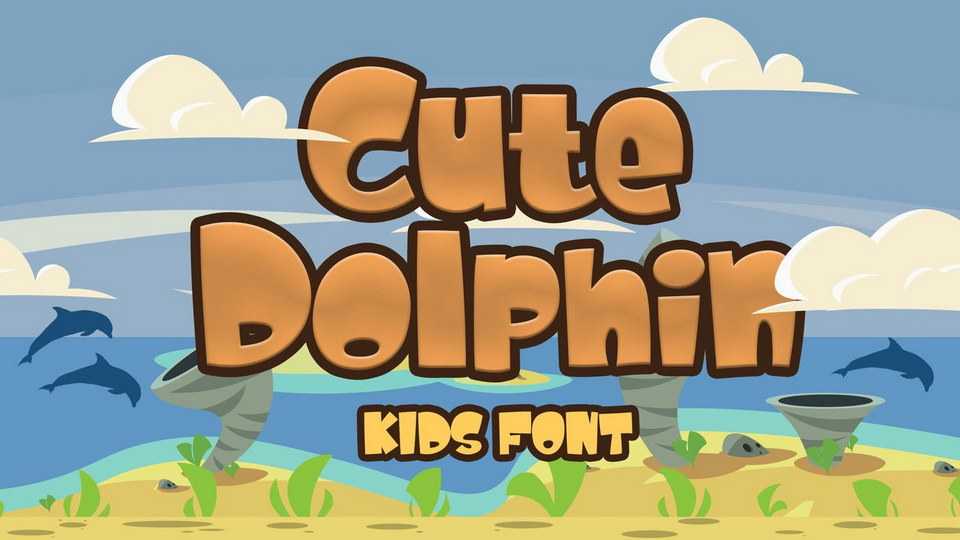
Download Cute Dolphin font, a cartoon comic typeface, having a cute proportion that looks cute brings a smile and happiness in every word being written.